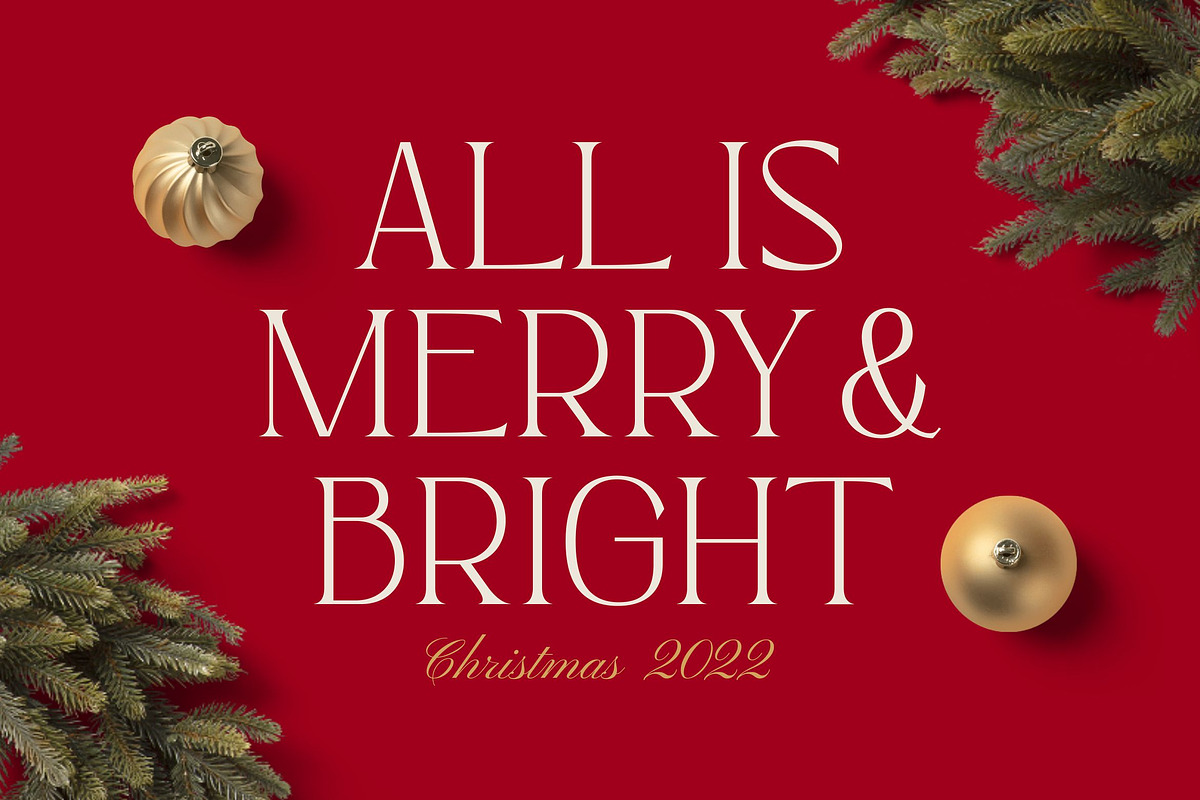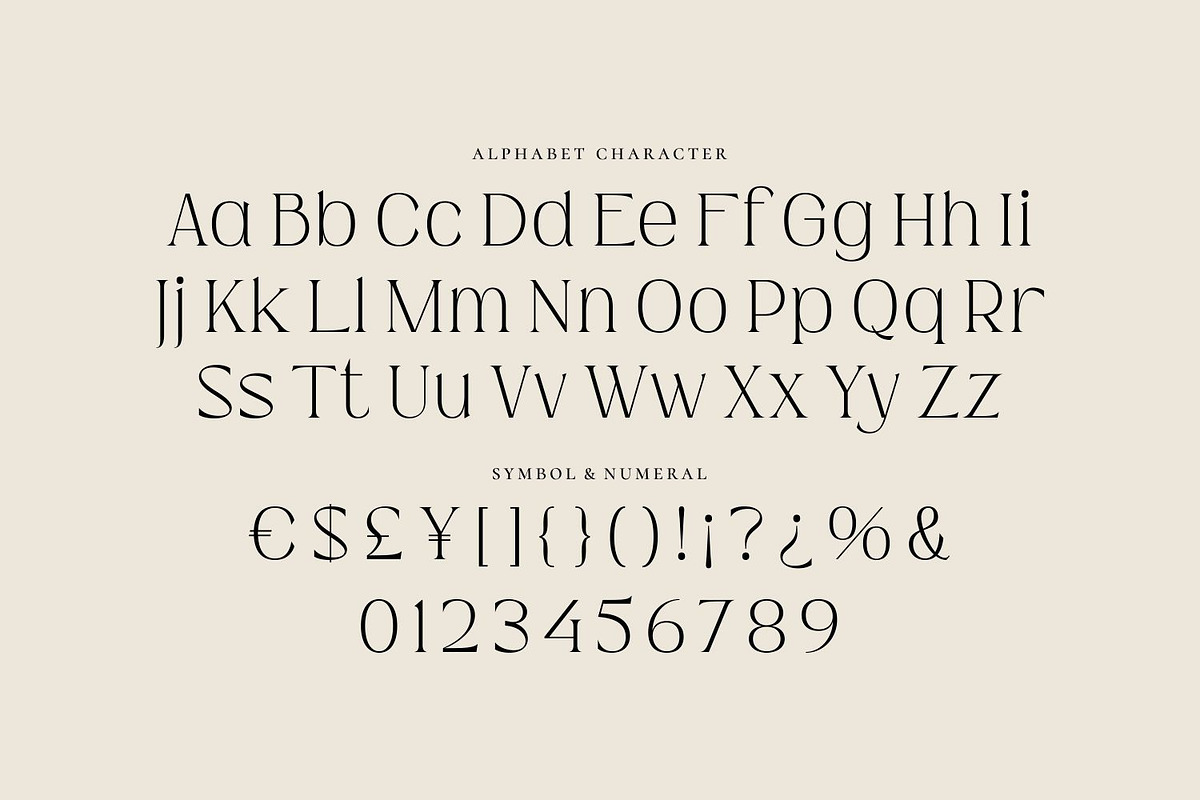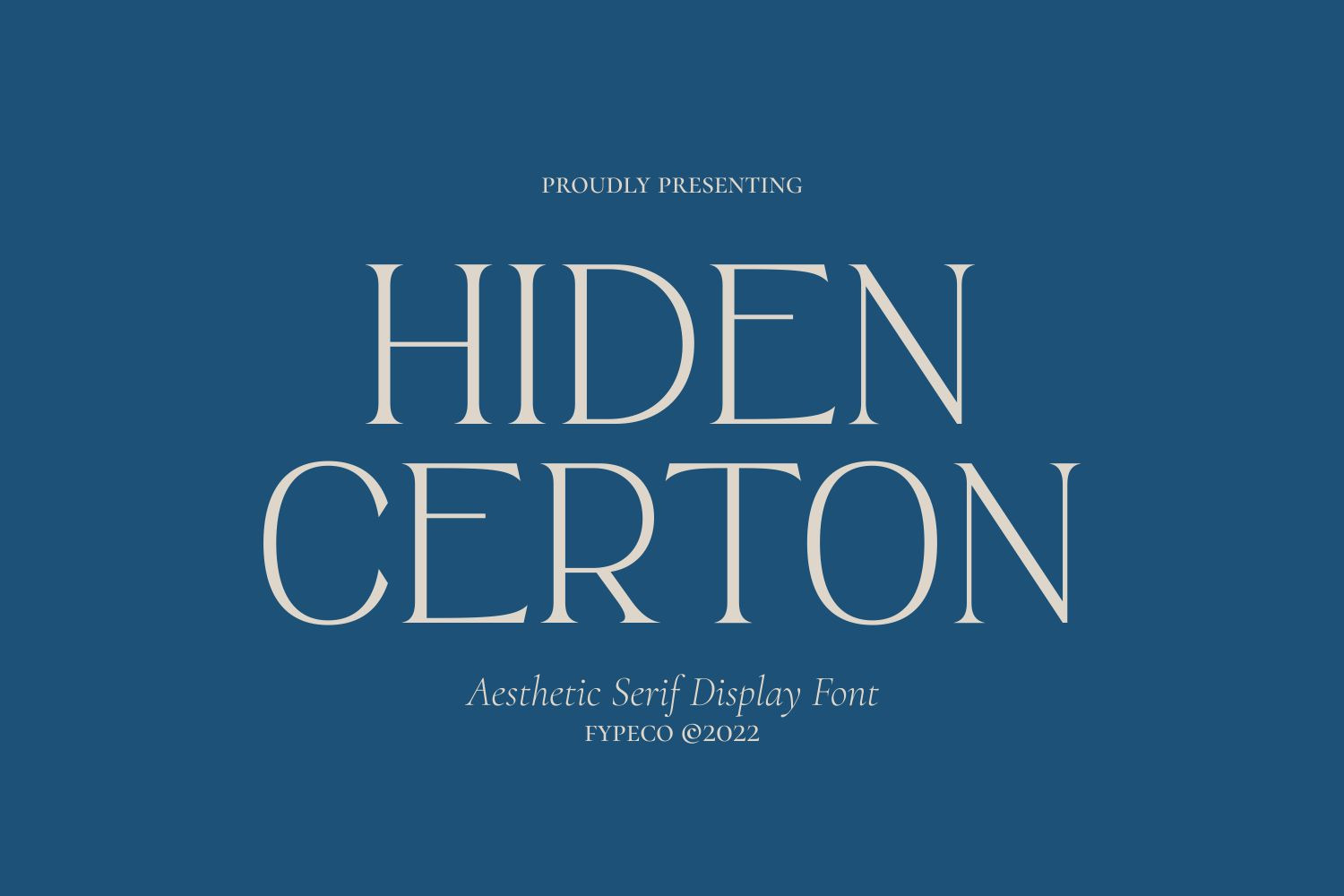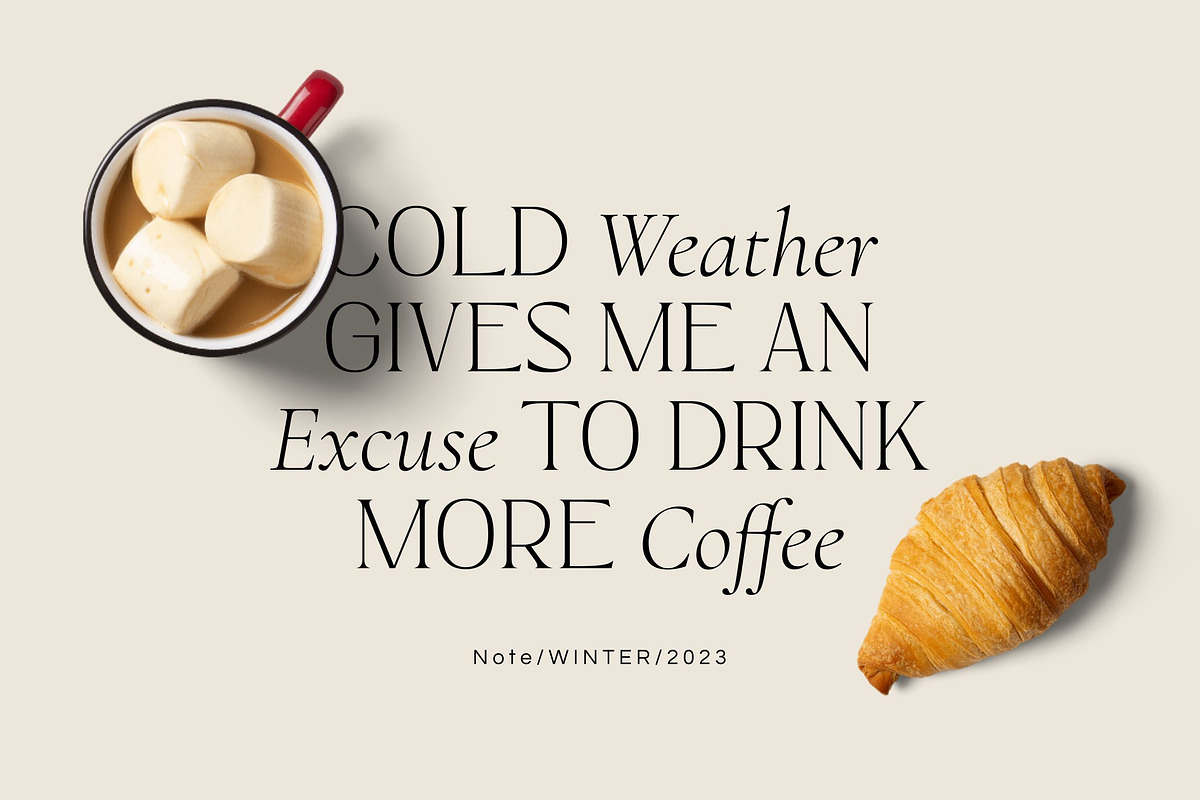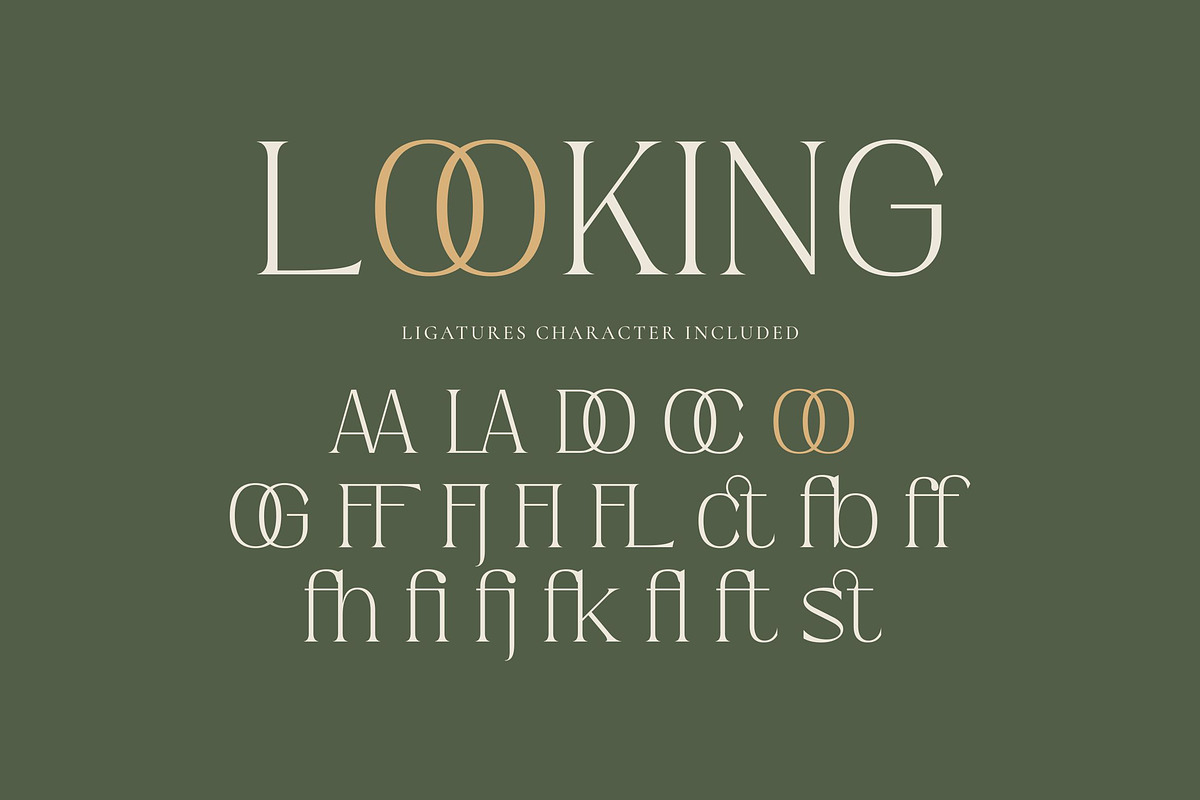
Hiden Certon - Aesthetic Serif Font
Hiden Certon is aesthetic display font with ligatures. Its stylish and modern design give it a elegant and classy feel. Perfect for a stunning logos, quotes, posts, blog posts. branding projects, magazine imagery, typography and much more.